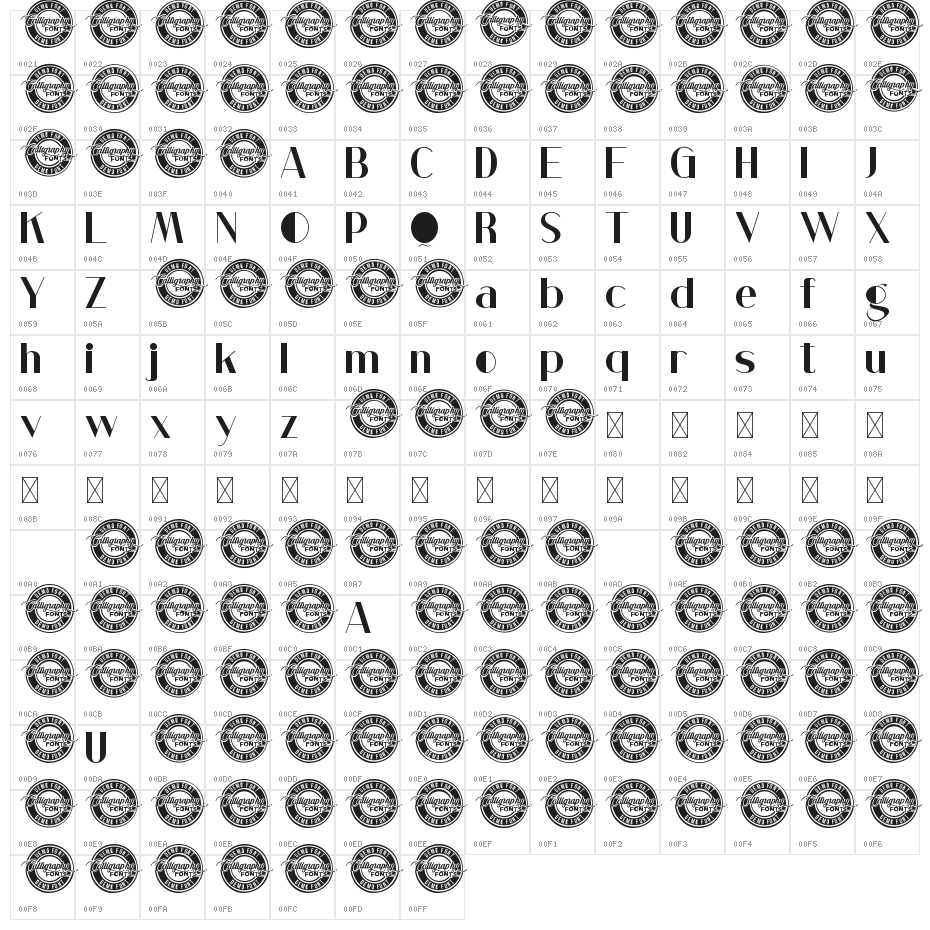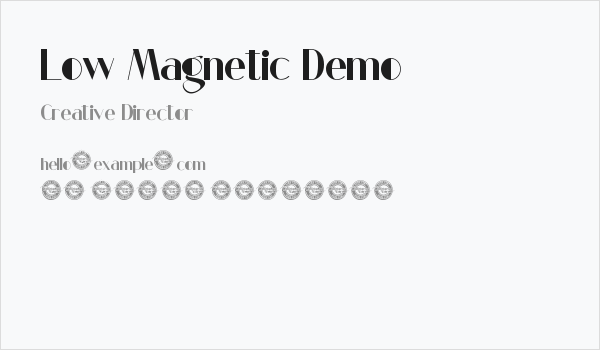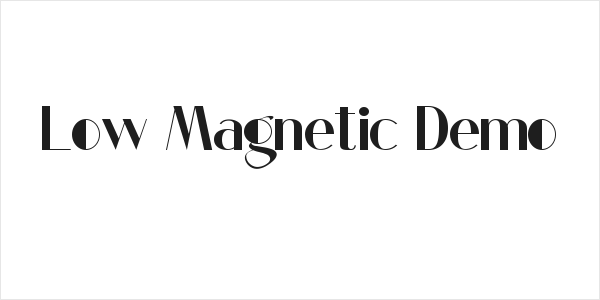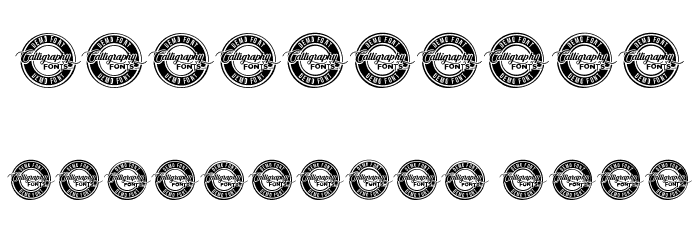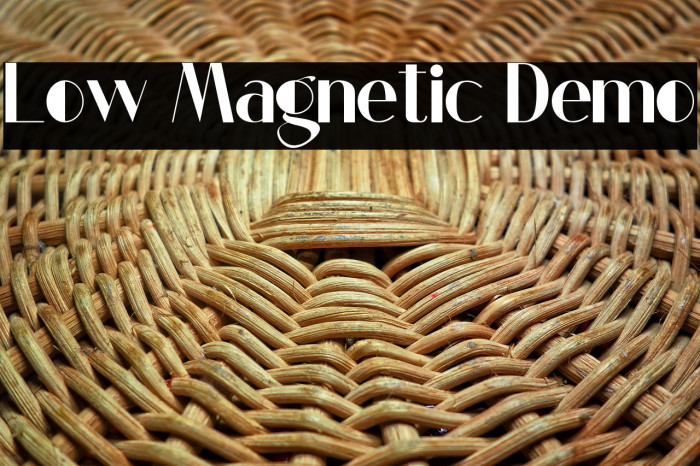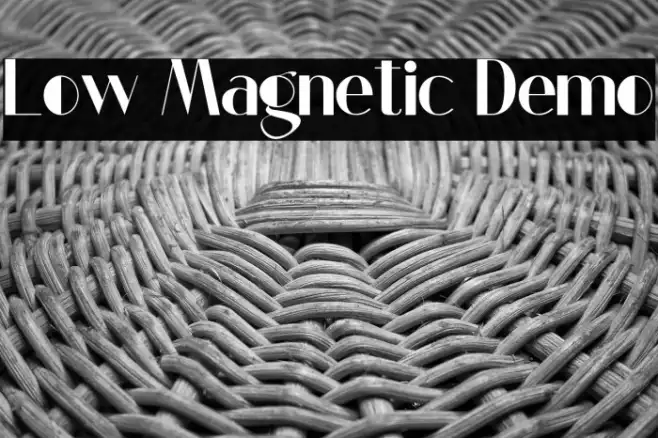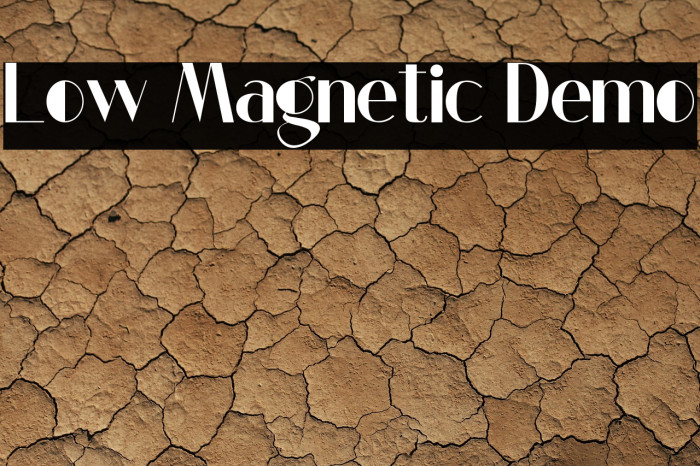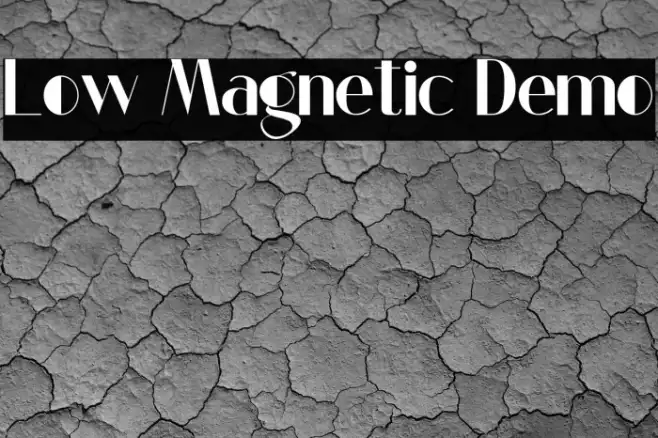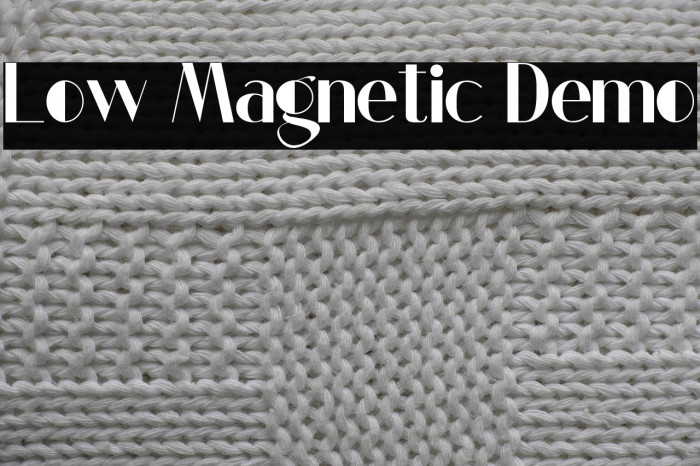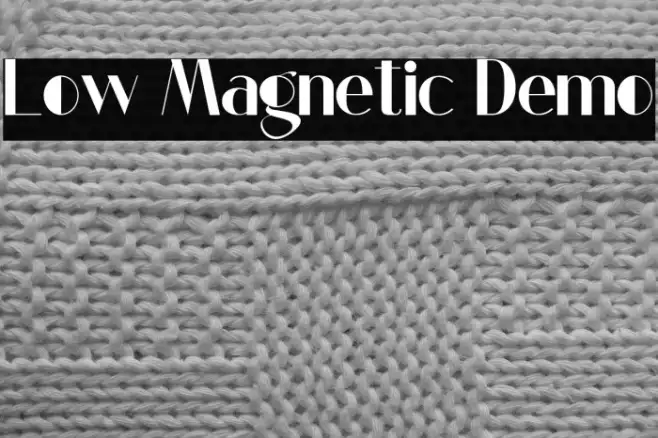
Low Magnetic Demo Font
Low Magnetic Demo Description
This font features a bold and striking design with high contrast between thick and thin strokes, giving it a dramatic and modern appearance. The uppercase letters are particularly distinctive, with unique geometric shapes and sharp angles that create a sense of movement and energy. The lowercase letters maintain a consistent style, with rounded forms that balance the angularity of the uppercase. The numbers and special characters are designed to complement the overall aesthetic, ensuring a cohesive look across all text elements. This font is ideal for making a strong visual impact.
| Proposed Projects | Ideal for branding, advertising, and editorial design where a modern and impactful look is desired. |